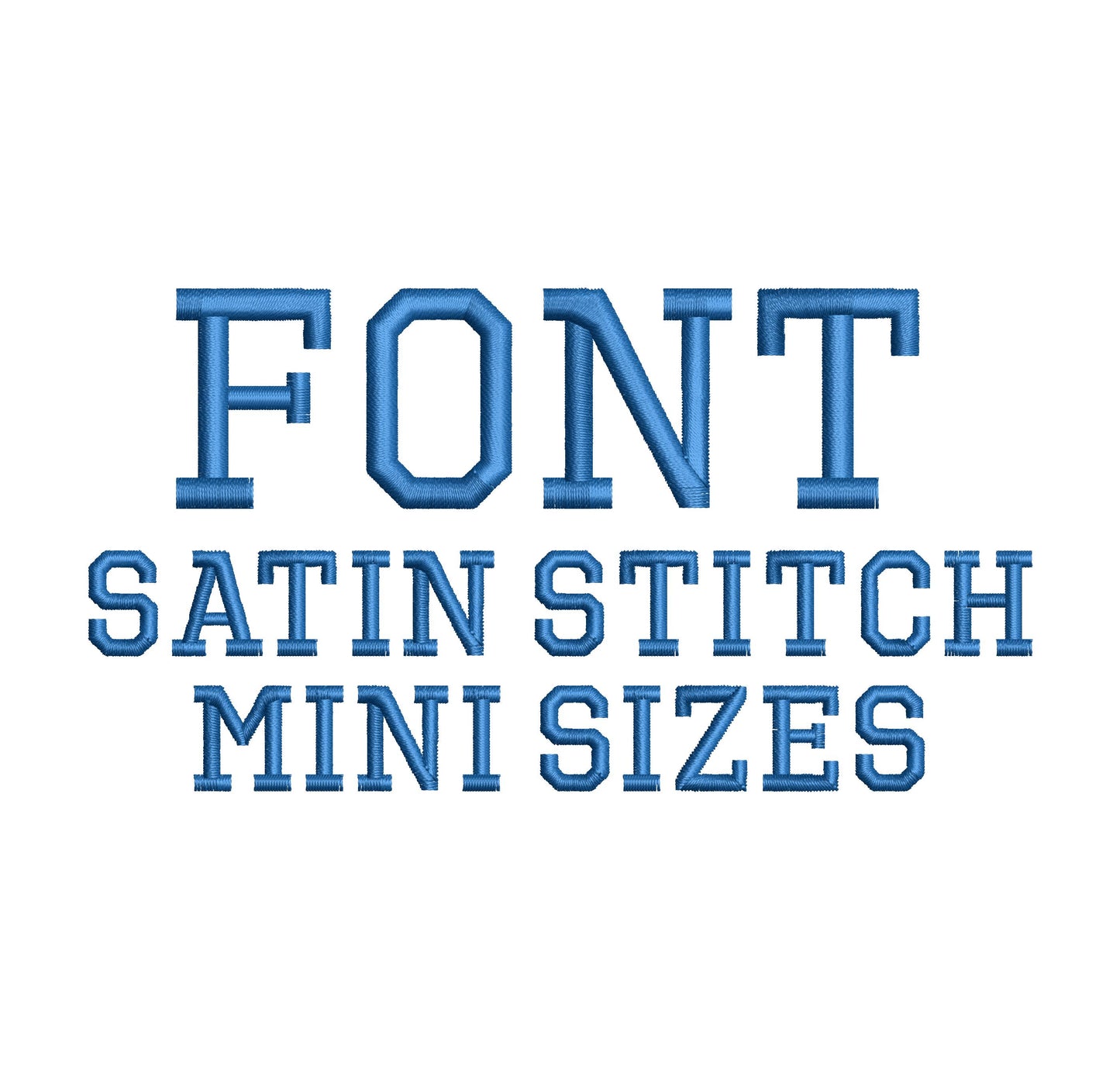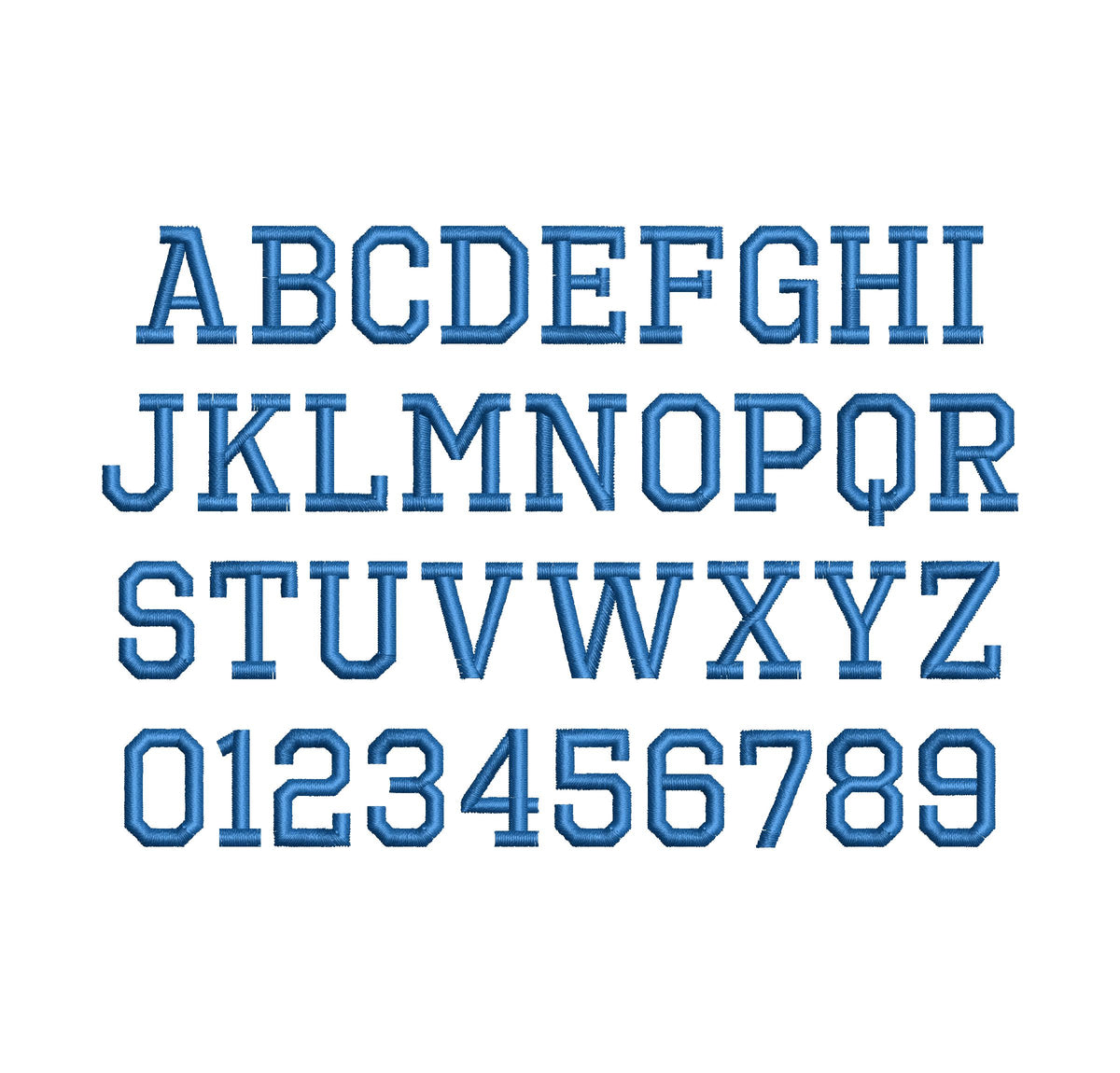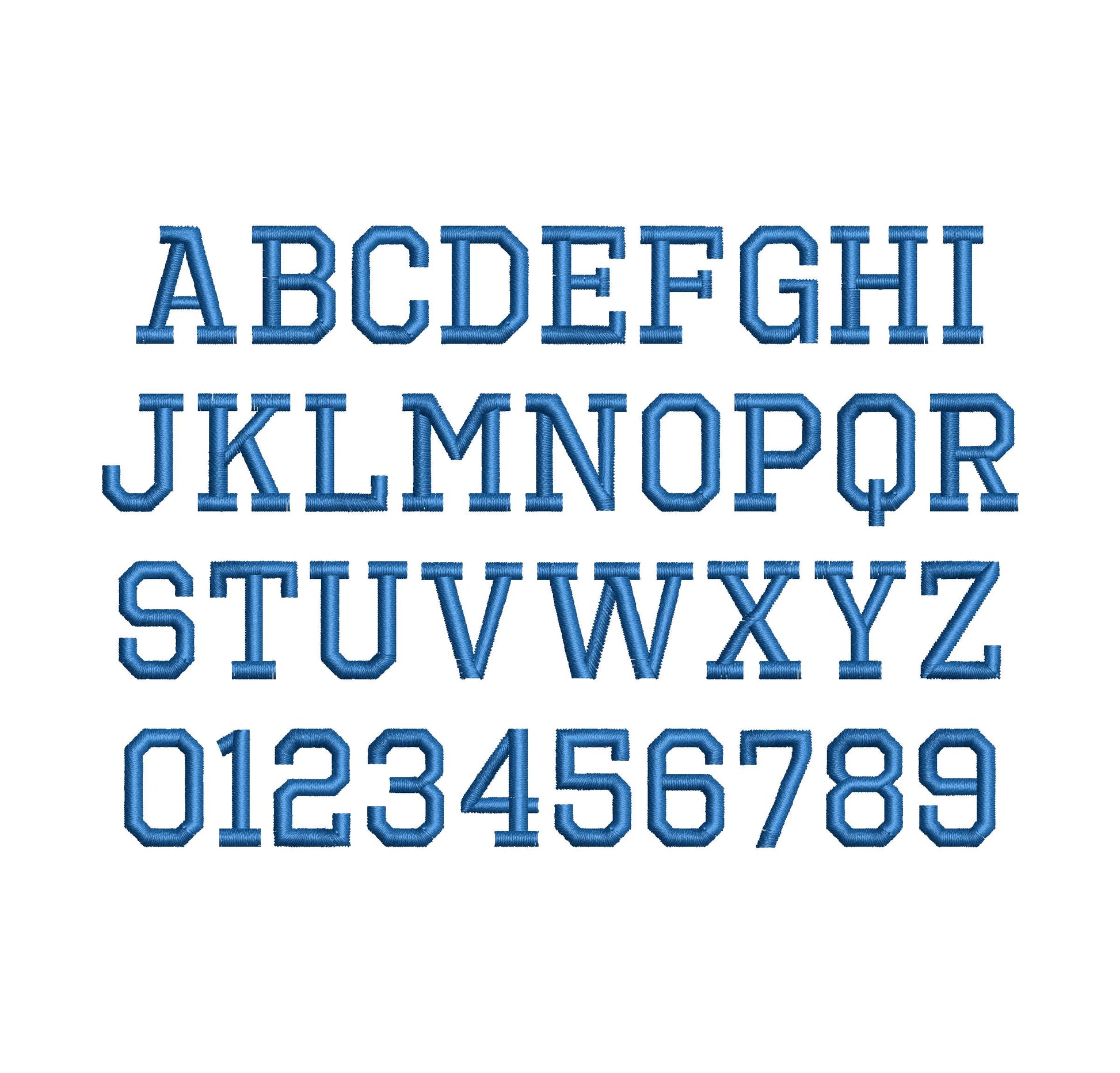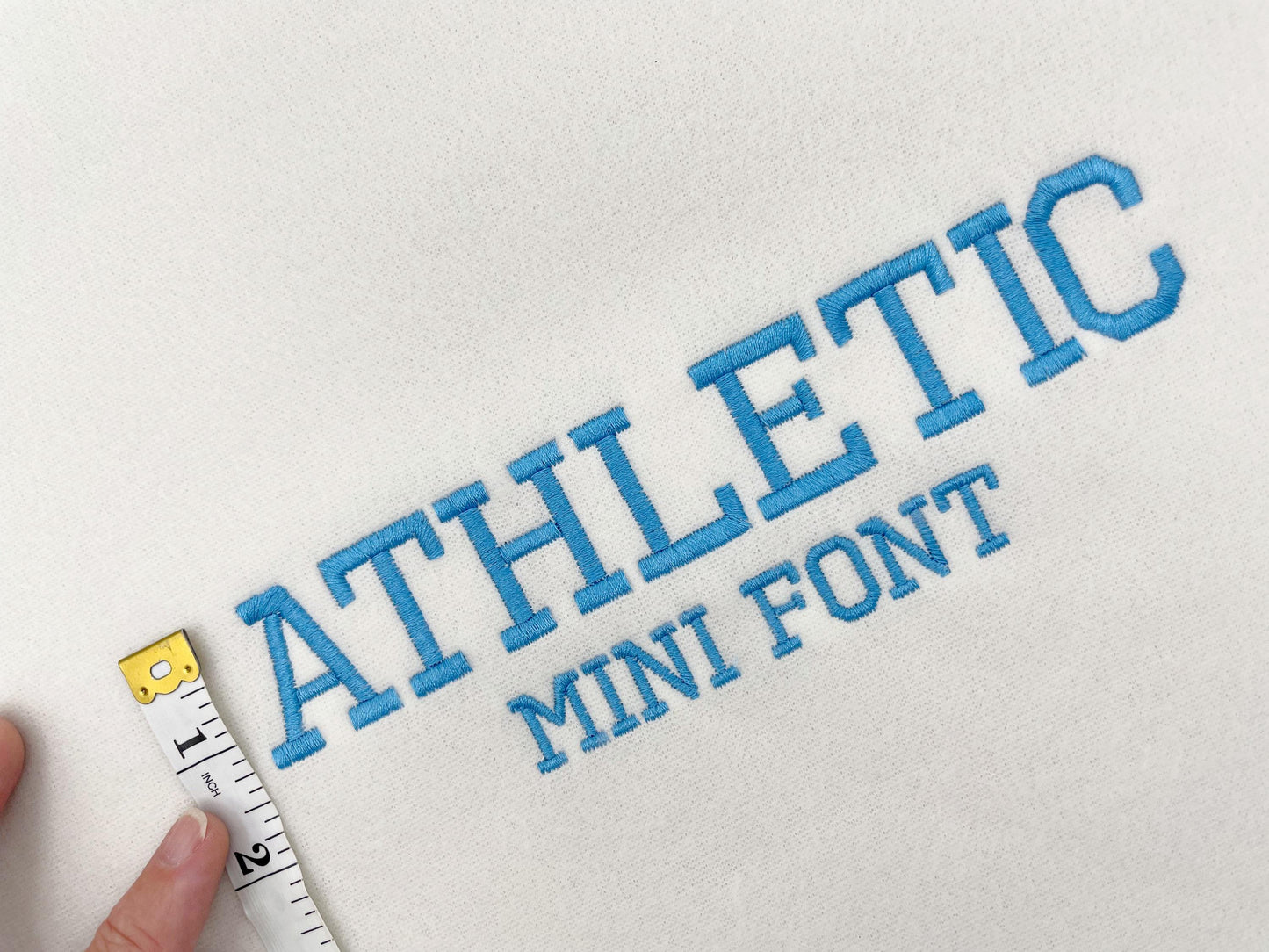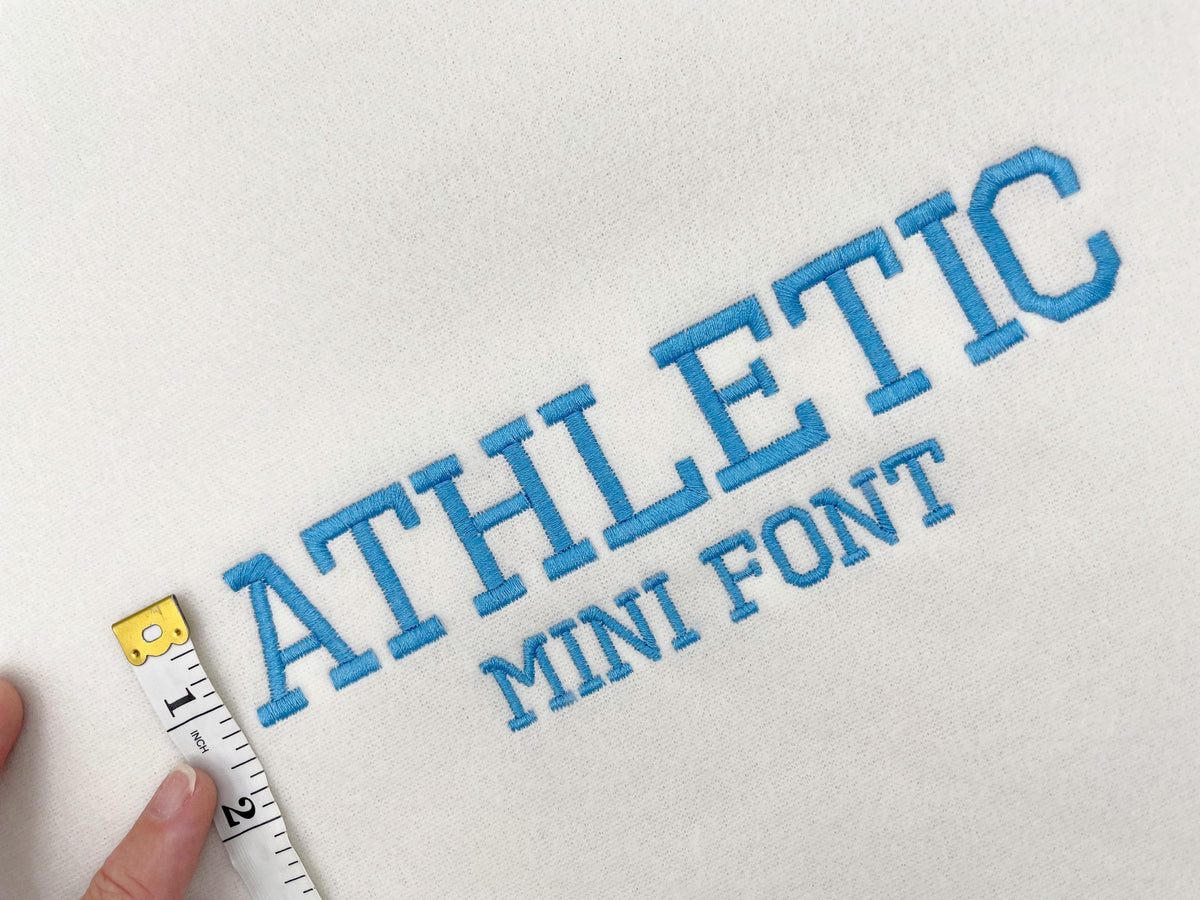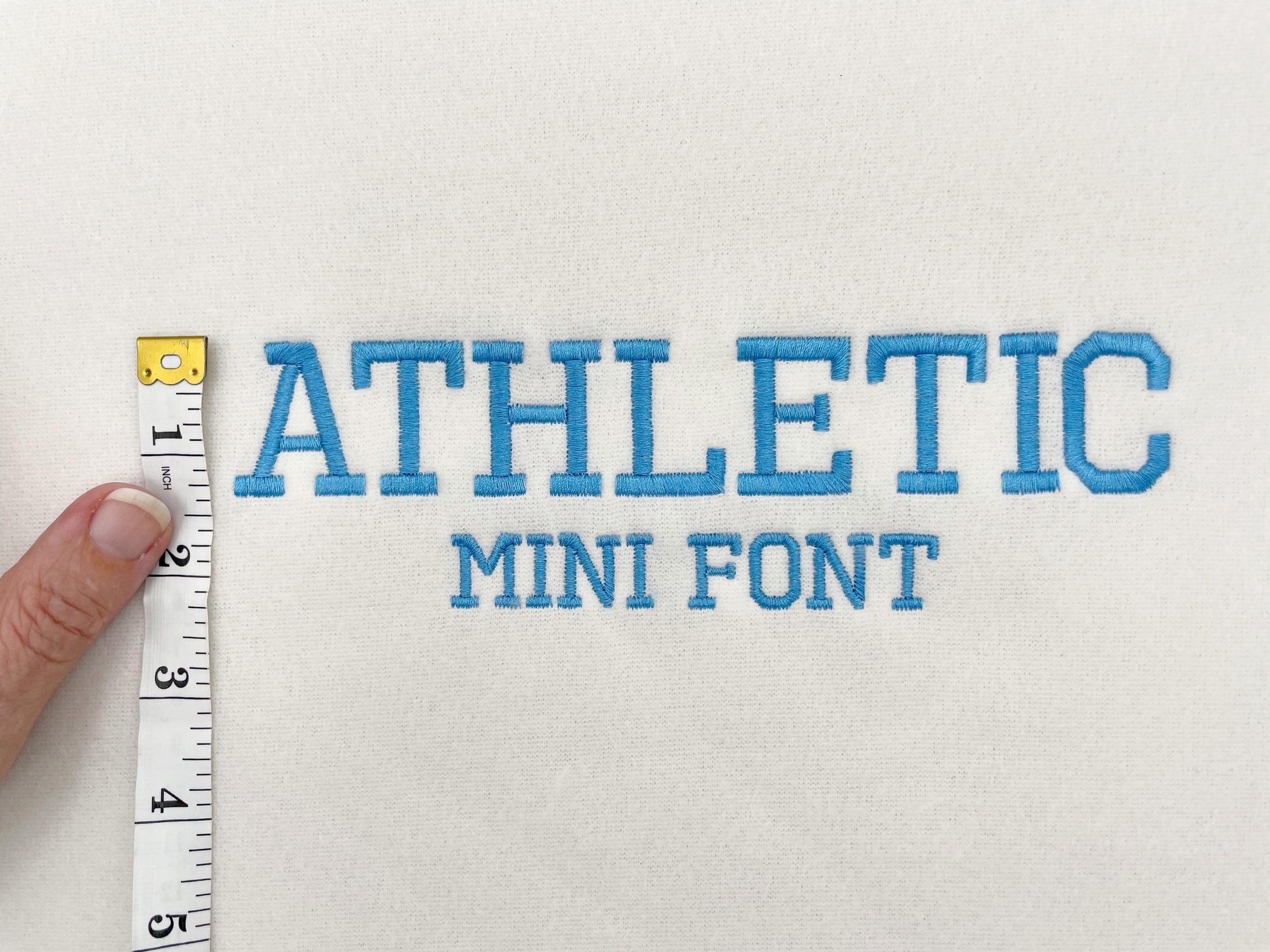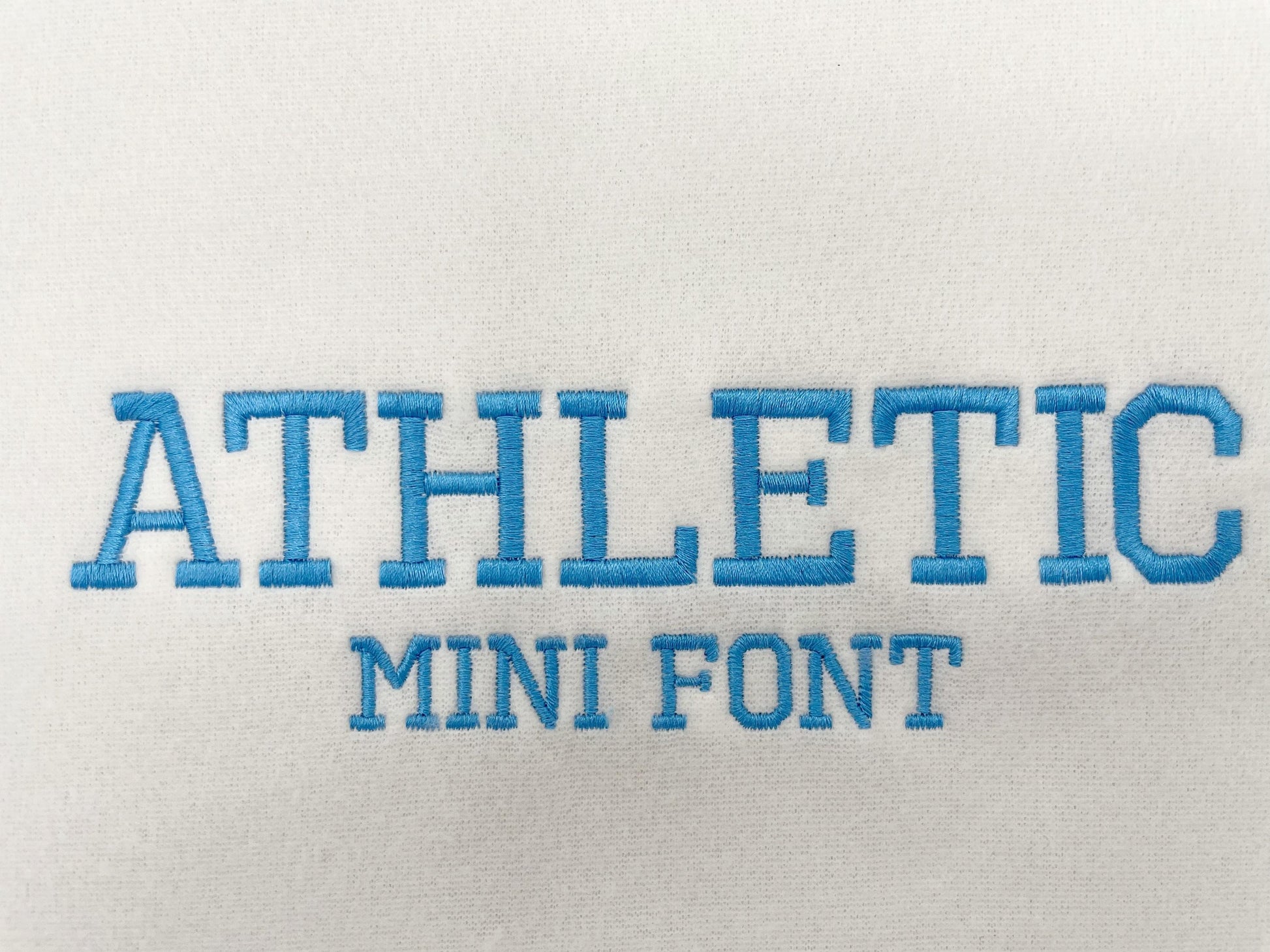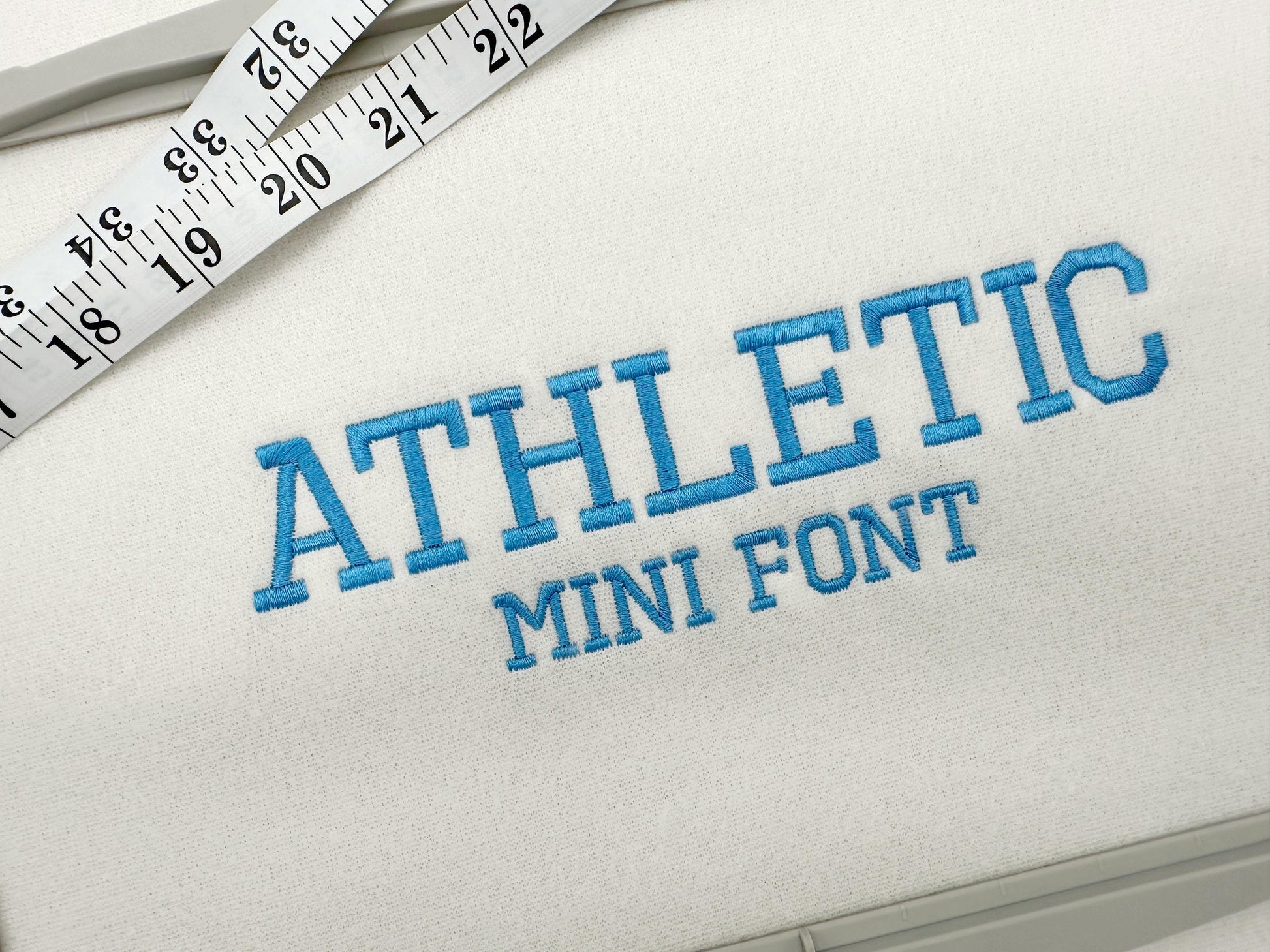
Collegiate Athletic Mini Font
Or click to open the linkA sporty collegiate block font in satin stitch, in mini sizes. Made for small team names, caps, sleeves and pockets.
The letters come in six mini sizes: 0.5, 0.6, 0.8, 1, 1.3 and 1.6 inches. Athletic block letters in satin stitch. Includes uppercase letters A to Z and numbers 0 to 9.
- Mini collegiate athletic font, satin stitch
- Uppercase A to Z, numbers 0 to 9
- 6 sizes, 0.5 to 1.6 in